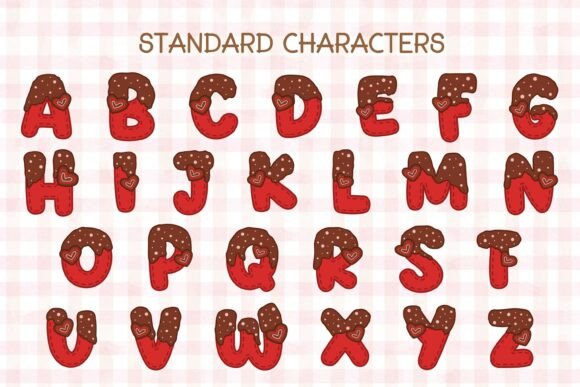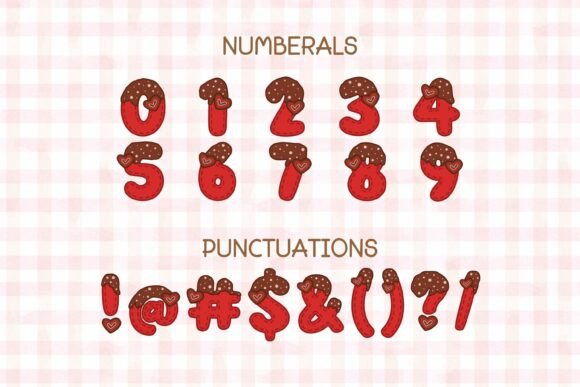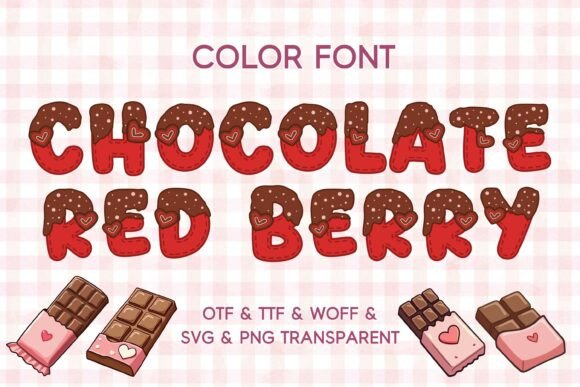
Indulge in the Sweet, Decorative World of Chocolate Red Berry Font
Are you ready to add a dash of sweetness to your designs? Look no further than the Chocolate Red Berry font, a delightful color font that’s a literal treat for the eyes. This charming typeface features chunky letters that resemble red velvet cookies dipped in dark chocolate and sprinkled with white topping, making it the perfect addition to any design project.
A Piece of Digital Art
The Chocolate Red Berry typeface is more than just a font; it’s a piece of digital art. With intricate heart-shaped details and realistic “icing” textures, this font is sure to delight designers and crafters alike. The level of detail is impressive, making it a standout choice for seasonal marketing, holiday-themed projects, and anything related to the world of sweets and gifting.
The Ultimate Choice for Seasonal Marketing
Whether you’re designing Valentine’s Day cards, bakery logos, chocolate packaging, or festive social media announcements, the Chocolate Red Berry font is the ultimate choice. Its visually rich design brings an instant sense of warmth and celebration to your work, making it perfect for any occasion that calls for a touch of sweetness.
Design Tips for Maximum Impact
To get the most out of the Chocolate Red Berry font, pair it with simple, clean backgrounds that allow the “delicious” details of the letters to stand out. This will ensure that your design is eye-catching and effective, without overwhelming the viewer. You can also experiment with different color combinations to create a unique look that suits your brand or project.
The Chocolate Red Berry font is a must-have for designers and crafters who want to add a touch of whimsy and fun to their projects. Whether you’re creating promotional materials, holiday cards, or social media graphics, this font is sure to delight. Its versatility and charm make it an excellent addition to any design toolkit.
Key Features of Chocolate Red Berry Font
- Chunky letters: The Chocolate Red Berry font features chunky letters that resemble red velvet cookies dipped in dark chocolate and sprinkled with white topping.
- Intricate heart-shaped details: The font includes intricate heart-shaped details that add a touch of whimsy and romance.
- Realistic “icing” textures: The font features realistic “icing” textures that give it a lifelike, 3D appearance.
- Visually rich design: The Chocolate Red Berry font is visually rich, making it perfect for designs that require a bold, eye-catching look.
Project Ideas for Chocolate Red Berry Font
- Valentine’s Day cards: Use the Chocolate Red Berry font to create romantic Valentine’s Day cards that are sure to impress.
- Bakery logos: The font is perfect for bakery logos, adding a touch of sweetness and charm to your brand.
- Chocolate packaging: Use the Chocolate Red Berry font to create eye-catching chocolate packaging that’s sure to stand out.
- Festive social media announcements: The font is perfect for festive social media announcements, adding a touch of warmth and celebration to your posts.
In conclusion, the Chocolate Red Berry font is a delightful addition to any design project. Its sweet, decorative design and intricate details make it perfect for seasonal marketing, holiday-themed projects, and anything related to the world of sweets and gifting. With its versatility and charm, this font is sure to delight designers and crafters alike. So why wait? Indulge in the sweet, decorative world of Chocolate Red Berry font today and add a touch of sweetness to your designs!